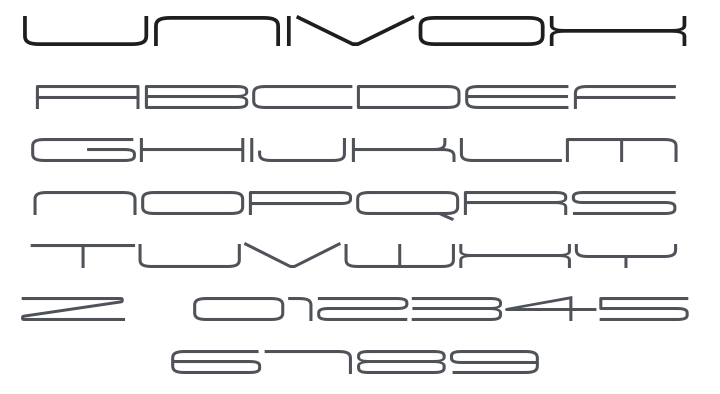
Univox Font
About Univox
Univox is a splendidly wide, ultra-thin techno display typeface with laser-precise hairline strokes and austere, unconventional proportions — each letterform stretched broadly with cold, scientific elegance that feels like it was drawn by a plotter on a research vessel. Its futuristic, industrial character is quietly commanding. Perfect for sci-fi interfaces, aerospace branding, tech editorial, industrial design graphics, and any headline needing refined, precision-engineered authority.